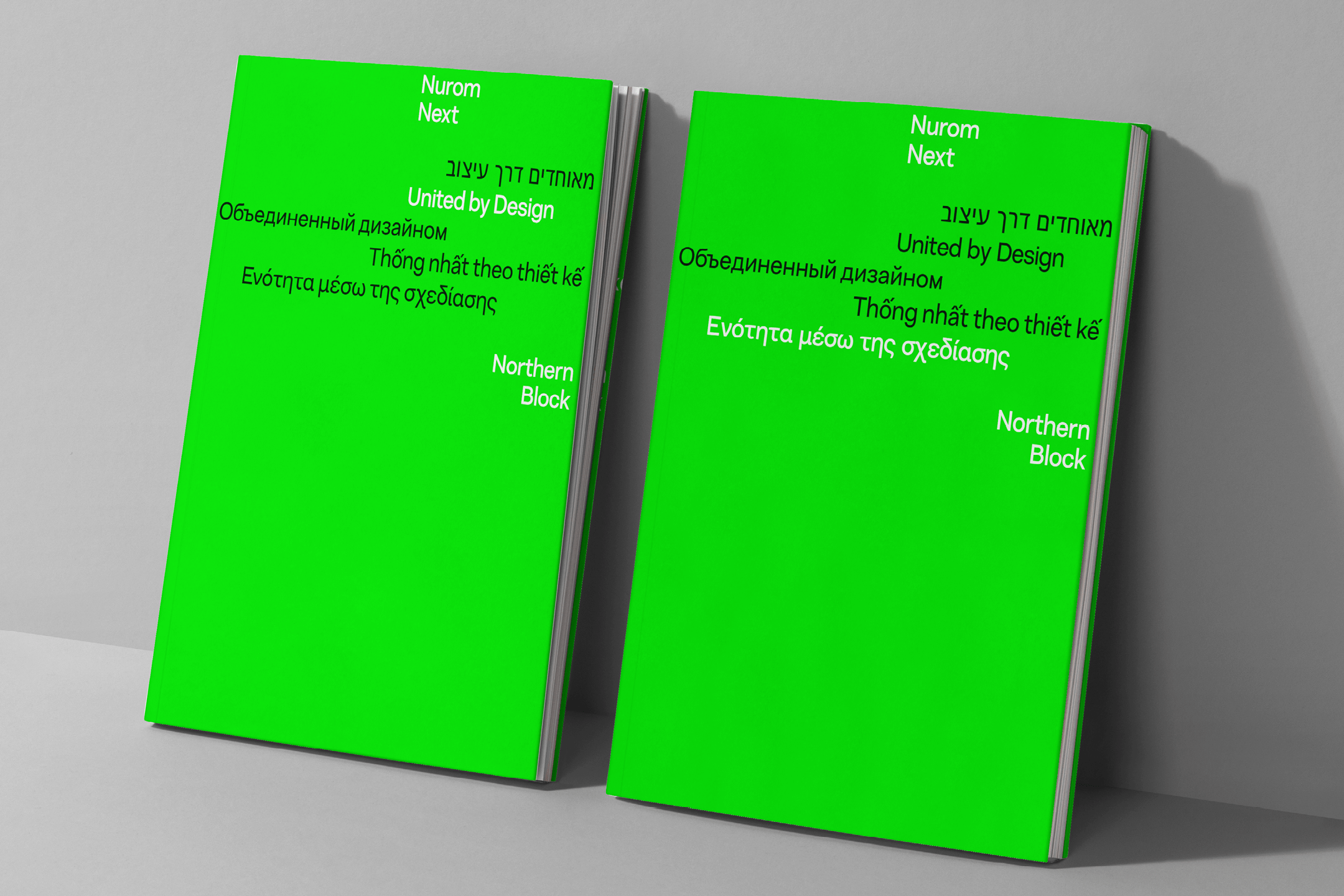
Nurom Next, the evolution of the original Nurom typeface released in 2017, represents a contemporary sans-serif design influenced by early grotesque styles. This next-generation typeface sets itself apart by avoiding a strict historical revival, opting for a fresh personality and distinct character. The design principles prioritise clean lines, balanced proportions, and a contemporary aesthetic, ensuring Nurom Next remains relevant in today's design landscape.
A significant enhancement in Nurom Next is its extended language support, now accommodating Cyrillic, Greek, Hebrew, and Vietnamese. This update makes the typeface more versatile and accessible globally, catering to designers with diverse linguistic requirements. The commitment to providing this extended language support demonstrates responsiveness to the evolving needs of a multicultural and multilingual design environment.
The font includes over 1,000 characters and offers 20 weights, providing extensive versatility for diverse design needs. It also features a wide range of OpenType options, such as localised forms, subscripts and superscripts, scientific forms, numerators and denominators, ordinals, proportional and tabular figures, case forms, and discretionary ligatures.